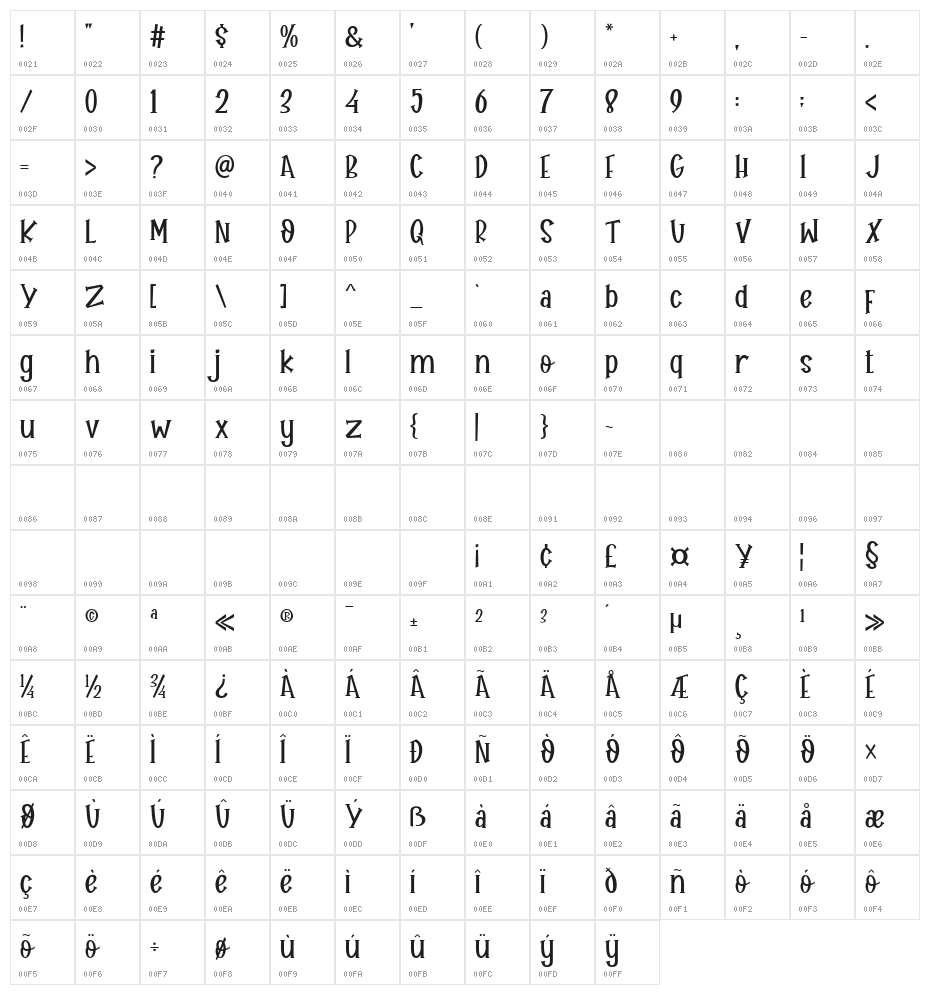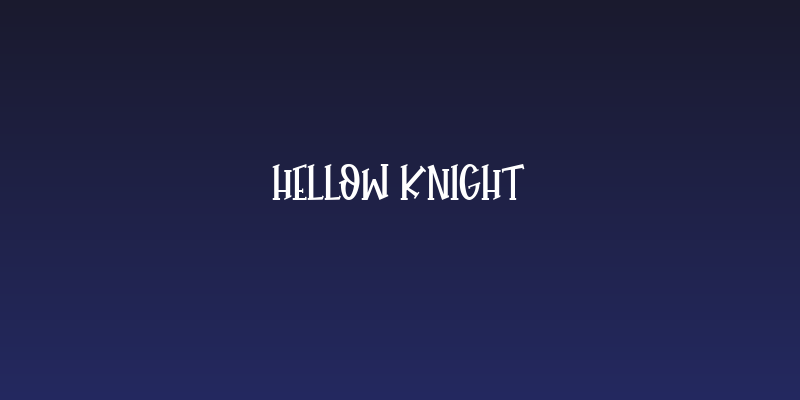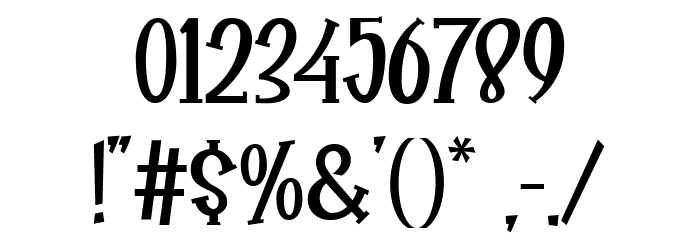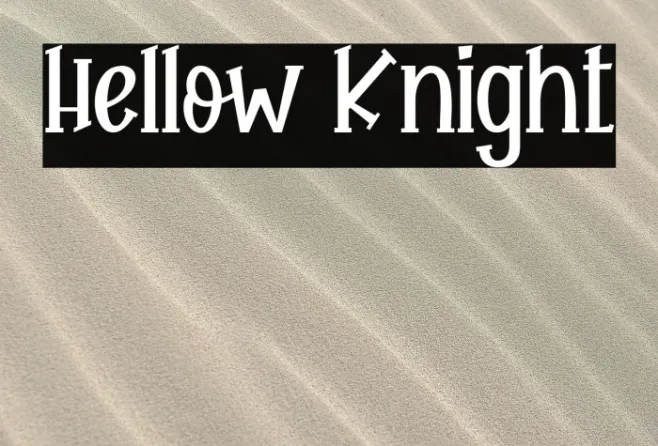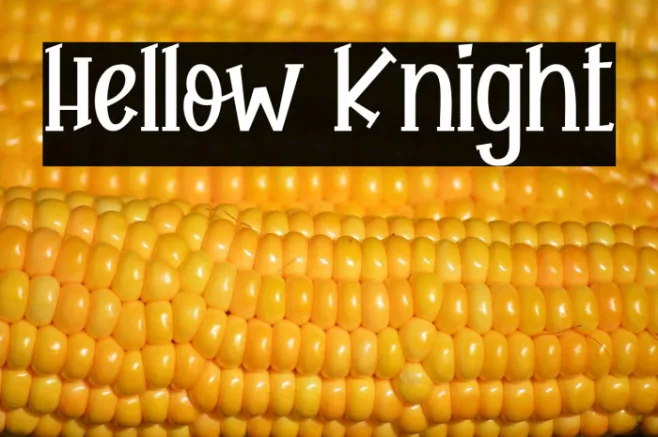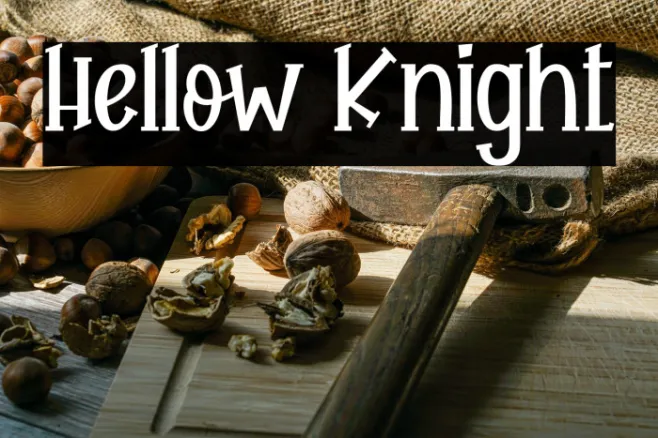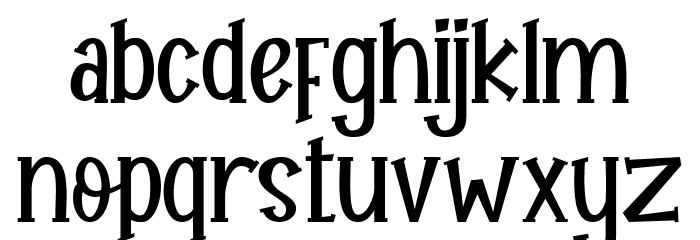
Hellow Knight Font
Hellow Knight Description
This font features a playful and whimsical style with a unique twist on traditional letterforms. The characters exhibit a slight slant, giving them a dynamic and lively appearance. The uppercase letters are bold and prominent, with distinctive curves and angles that add character and flair. The lowercase letters maintain a consistent style, complementing the uppercase with their own quirky charm. Numbers are clear and easy to read, while special characters are designed with the same playful aesthetic. The overall design is eye-catching and suitable for creative projects that require a touch of fun and individuality.
| Proposed Projects | Ideal for children's books, playful branding, creative posters, and whimsical invitations. |